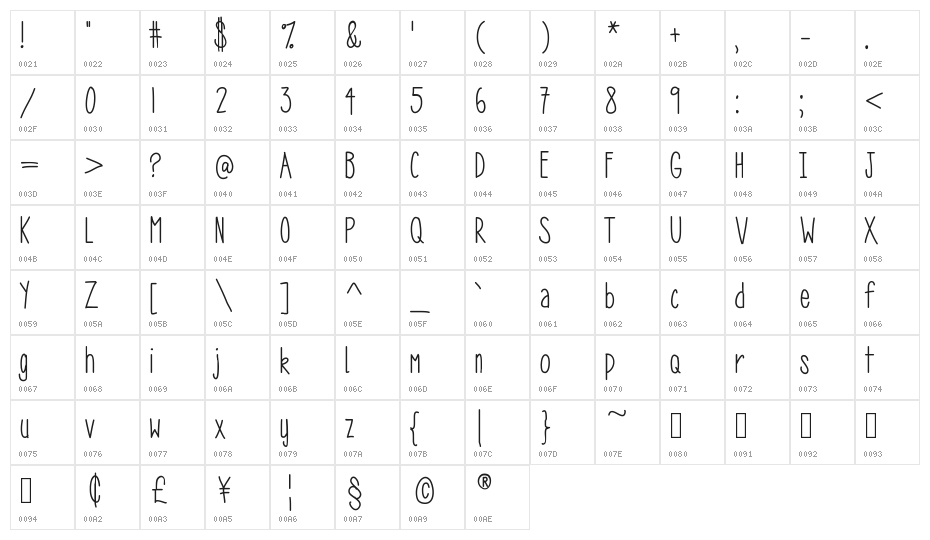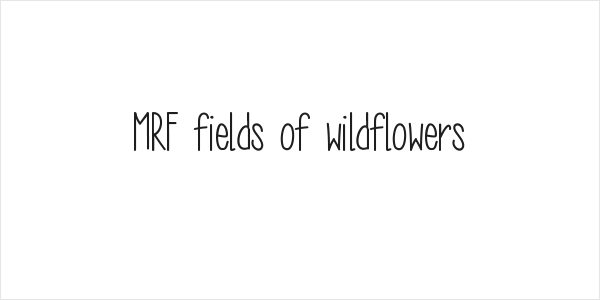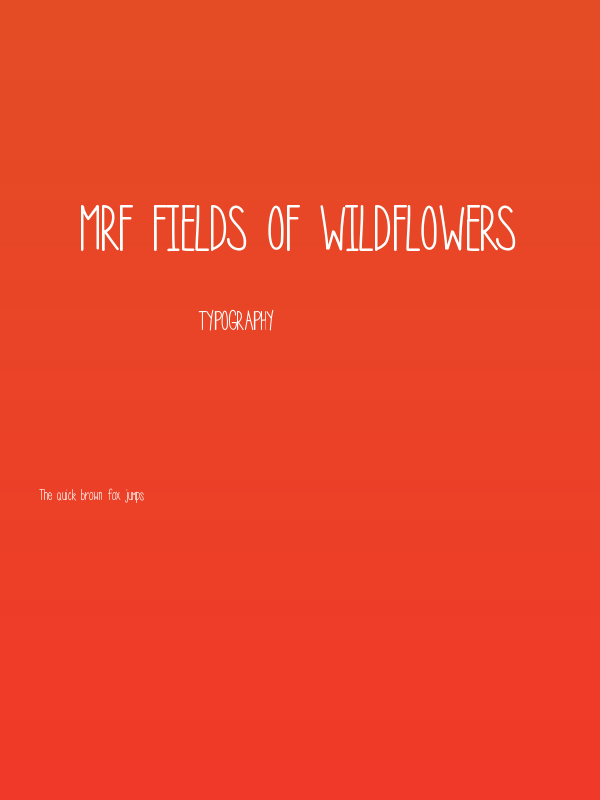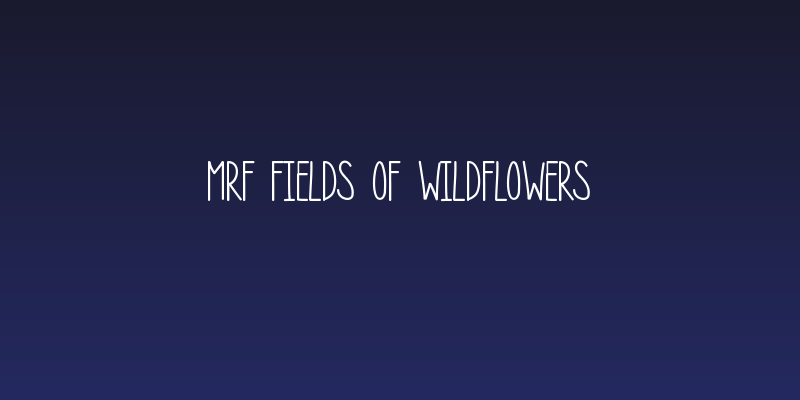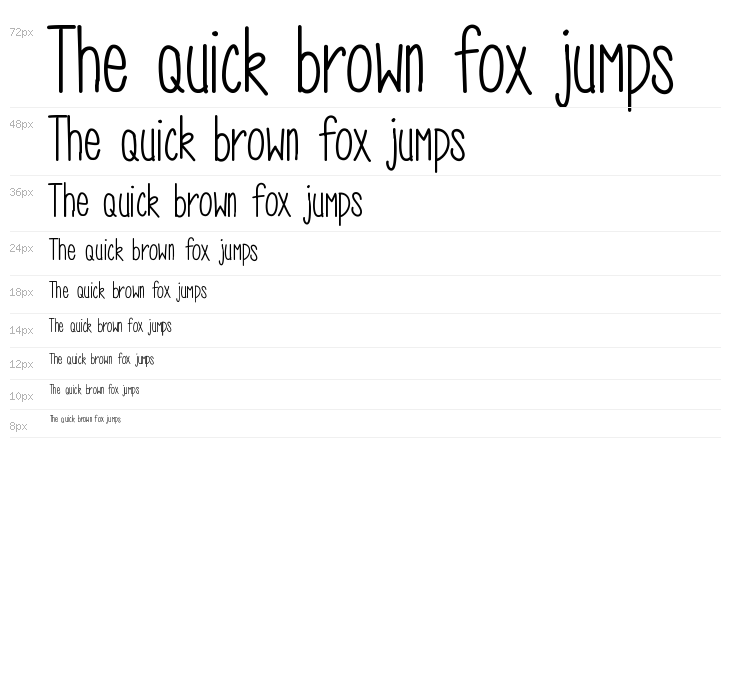
MRF fields of wildflowers Font
MRF fields of wildflowers Description
This font features a playful and whimsical handwritten style, characterized by tall, narrow letters with a slightly irregular baseline. The strokes are consistent in width, giving it a clean and approachable appearance. Its casual and friendly nature makes it suitable for informal settings. The uppercase letters are slightly taller than the lowercase, and the numbers are well-proportioned, maintaining the font's overall balance. Special characters are included, matching the font's playful aesthetic.
| Use Case | Headlines, Informal text, Branding |
| Proposed Projects | Ideal for children's books, greeting cards, casual invitations, and playful branding. |